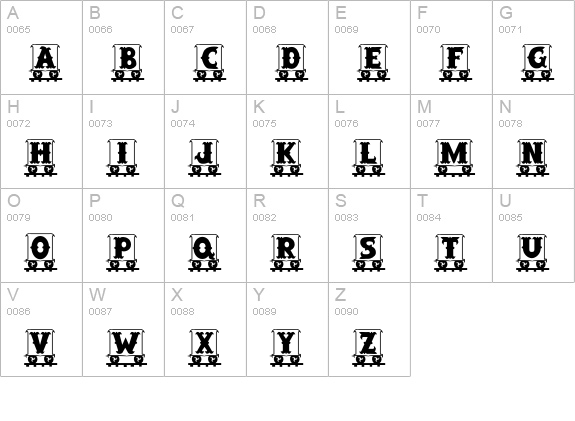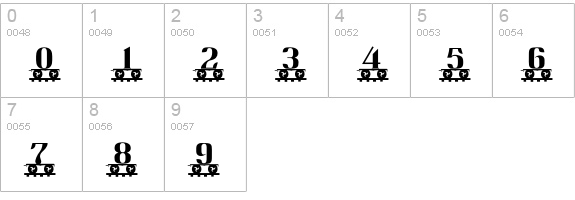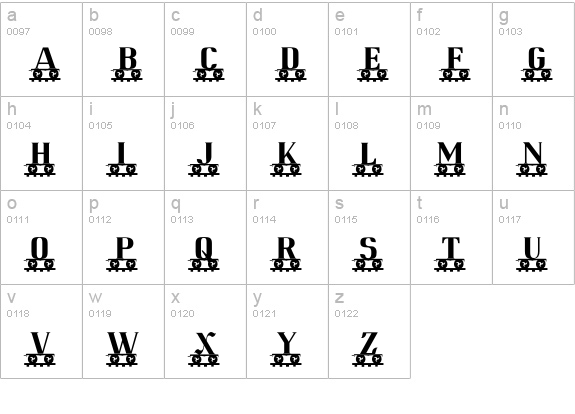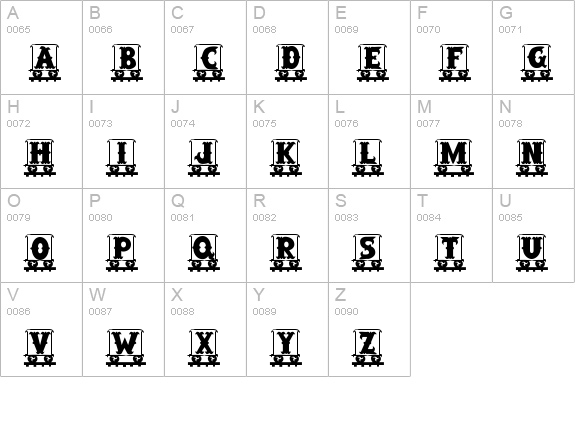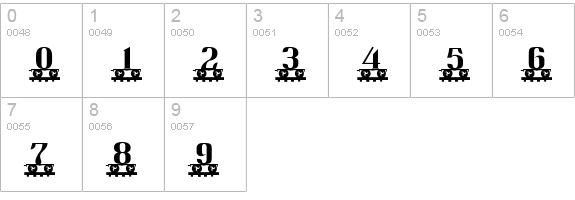
Railroad Font Details
Railroad font is a captivating typeface that captures the essence of vintage train travel. With its bold and distinctive letterforms, this font evokes a sense of adventure and nostalgia, reminiscent of the bygone era of steam locomotives and romantic journeys across the country. Its strong vertical lines and intricate details make it perfect for headlines, logos, and branding projects that seek to convey a sense of history and timeless elegance. What sets Railroad font apart is not only its unique design but also its accessibility. This remarkable font is freely available to download, allowing designers and enthusiasts alike to add a touch of old-world charm to their projects without breaking the bank. Whether you're working on a personal project or a professional endeavor, Railroad font offers a versatile and visually striking option that is sure to captivate your audience. To download this font and explore its full potential, visit FontsMarket.com. This online platform provides a wide range of fonts, including Railroad font, all available for free. With just a few clicks, you can access this exceptional typeface and start incorporating its timeless appeal into your designs. Don't miss out on this opportunity to enhance your creative endeavors with the allure of Railroad font.